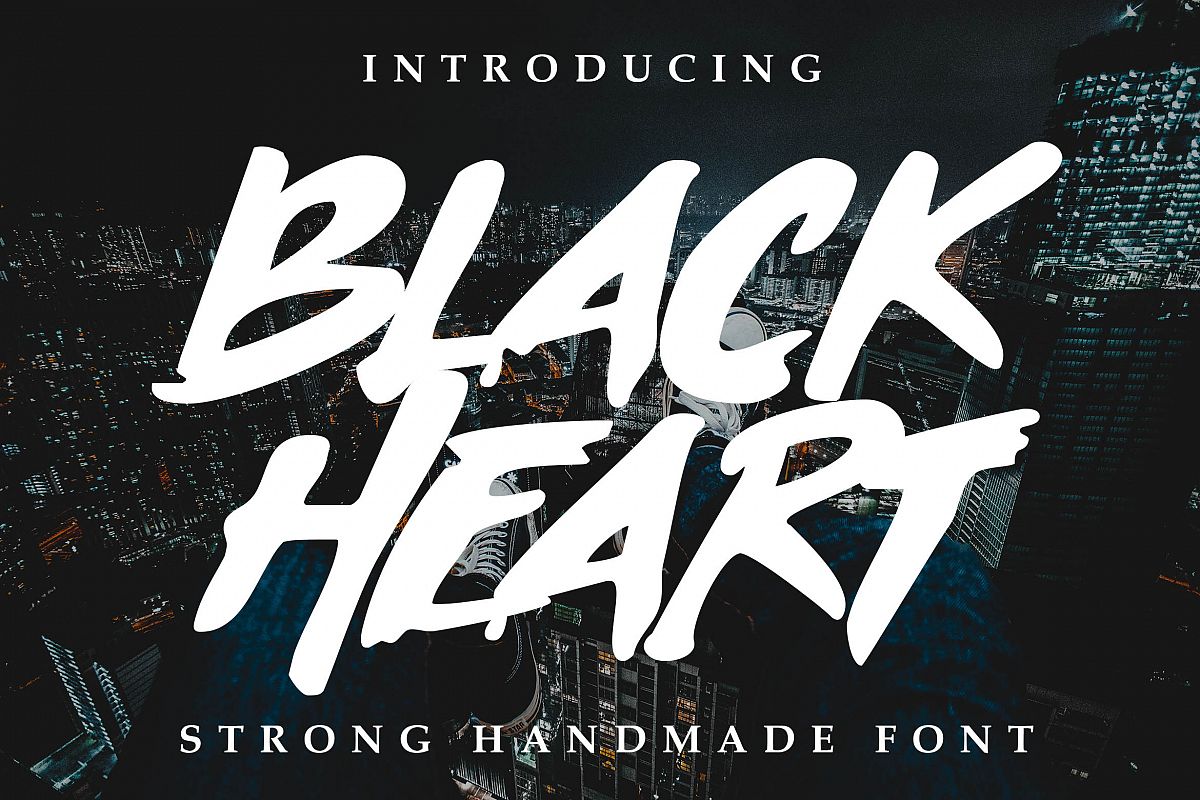
Black Heart Font
Black Heart is unique Spirit font. This font is perfect for logo, quote, poster, playful lettering, for clothing, or any design projects.